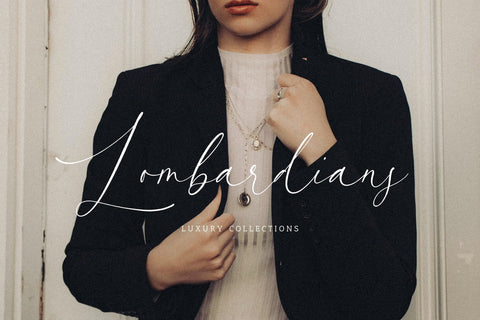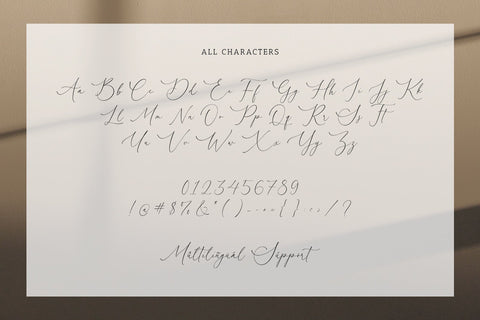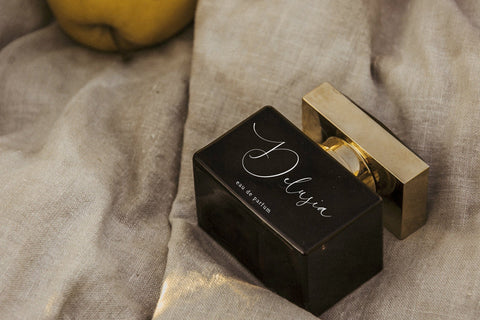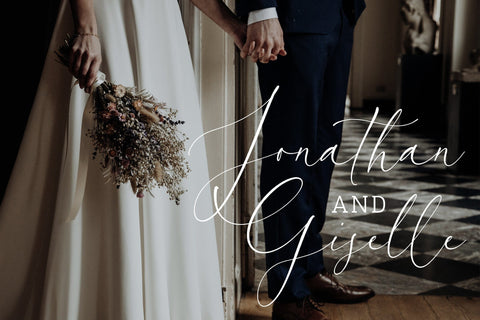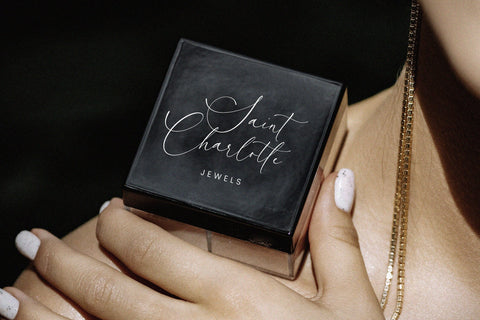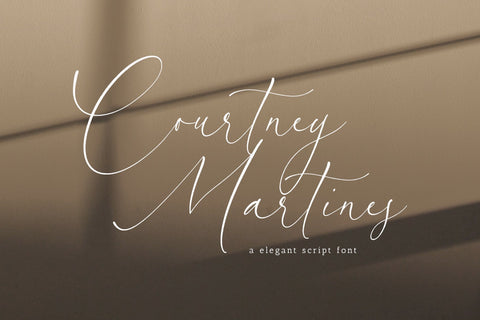
Courtney Martines - Handwritten Script font
Proudly Present, Courtney Martines
Courtney Martines - Handwritten Script font , which was created with great care and specially created for you
Courtney Martines is perfect for product packaging, branding project, megazine, social media, wedding, or just used to express words above the background.